Here come the font police over Bernie’s rally poster
Excuse me, Dunkin’ Donuts, someone used your brand colors and a rounded sans-serif typeface without your permission.
Sen. Bernie Sanders (I-Vt.) promoted a pro-union rally in Massachusetts on Sunday with a Dunkin’-inspired poster, and Washington Examiner engagement editor Maria Leaf tagged the doughnut brand to ask if they authorized it. Leaf’s mentions and quote tweets were filled with people asking her if she was serious, calling her a Karen, and dunking on the Examiner for chasing down such a hard-hitting story.
Parody is protected in the U.S. under the fair use doctrine. In 1994, the Supreme Court ruled in Campbell v. Acuff-Rose Music, Inc., that 2 Live Crew’s “Pretty Woman,” a parody of Roy Orbison’s 1964 song, didn’t violate Orbison’s publishing company’s copyright.
“The Supreme Court explained parody needs to mimic the original to make its point,” said Rachel Kim, copyright counsel at the Copyright Alliance.
Kim told me the poster was clever. “You have the colors, the browns, the oranges, the pinks,” she said. “You have the typeface and the font that reminds you of the Dunkin’ Donuts ads, you have the logos, you have the slogan at the bottom with the twist.”
Generally, elements like colors and typefaces aren’t protectable under copyright law, Kim said. Still, “not every attempt at parody is created equally,” and parodies that qualify for fair use exceptions can depend on the character and purpose of its use and whether or not it causes market harm.
Sanders has held 16 in-person and virtual events with unions and union leaders in 2021 and 2022, and his posters often play off company branding. The poster for a Dec. 2021 town hall meeting with Starbucks workers showed the Starbucks Siren raising a fist. A June rally in Chicago in support of candidates there used type and color to pay homage to the Chicago Bulls.
Support for unions is on the rise. Public approval for labor unions hit 68% last September, its highest point since 1965, according to Gallup. “We are seeing a rebirth of the American trade union movement from coast to coast,” Sanders said at the Boston rally.
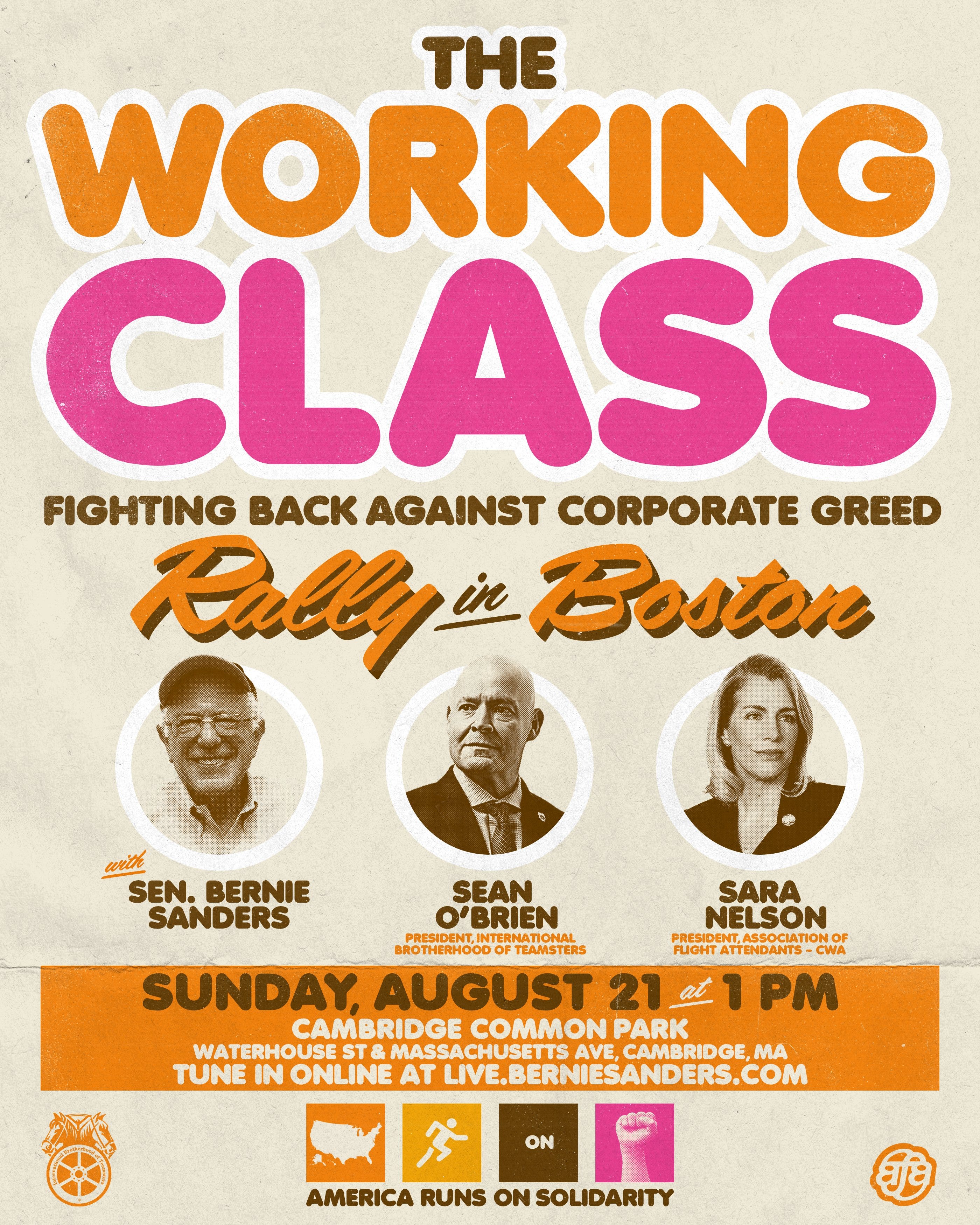
The National Portrait Gallery currently has photographer Pari Dukovic’s 2019 photo of Trump for TIME (above) on display until the official portrait comes out. And while Kehinde Wiley’s portrait of former President Barack Obama is out on tour, Shepard Fairey’s “Hope” is taking its place.
Who do you think is painting the Trumps’ portraits?? Let me know your guesses.
I don’t mean to sound cliché, but the new Rolling Stone logo pops
After using a flat logo for four years, Rolling Stone rolled out a revamped logo last week as part of a brand refresh. The lettering was designed by Jesse Ragan at XYZ Type, and former Rolling Stone art director Roger Black called it the magazine’s best logo yet.
“The assignment here was to carefully move the logo to better align it with the tradition,” Black said in a blog post. “Jesse Ragan has done that, bringing back the engraved drop shadow from 1967. And he has truly improved on the basic letterforms, while somehow making it look like it’s always been this way.”
Rolling Stone’s original 1967 logo was ornate and all caps, hand drawn by San Francisco poster artist Rick Griffin. It was redesigned by John Pistilli in 1975, and again in 1977 by Jim Parkinson for the magazine’s 10th anniversary. It’s the 1981 logo by Parkinson, though, that’s the brand’s longest running, used for 37 years until 2018.